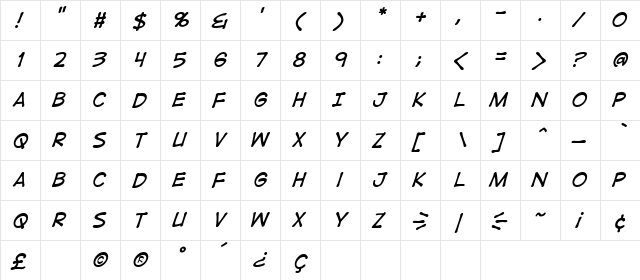
DigitalStrip BB Italic
Italic · Nate Piekos Nate Piekos ·
Foundry Nate Piekos
FoundryNate Piekos
DesignerNate Piekos
Design Context for DigitalStrip BB Typeface
DigitalStrip BB channels digital-age aesthetics through its sharp, structured letterforms — ideal for brands that want to signal innovation. Its italic angle brings a sense of urgency and motion to the letterforms.